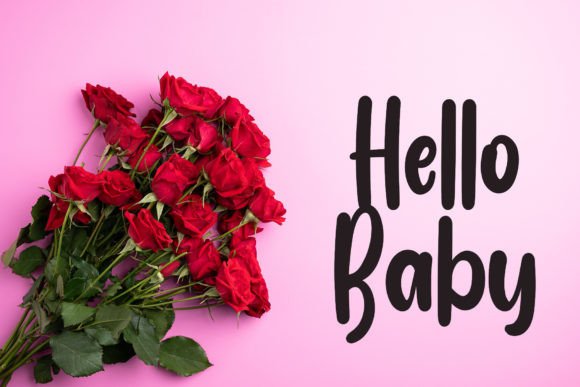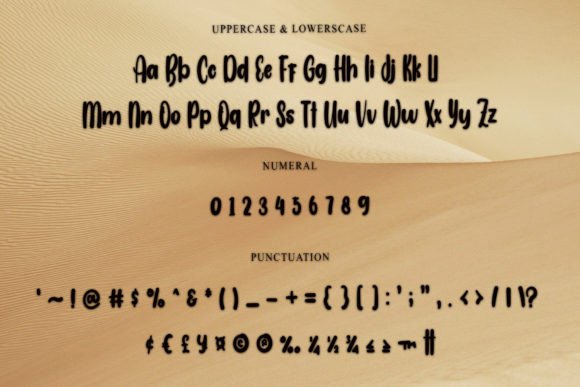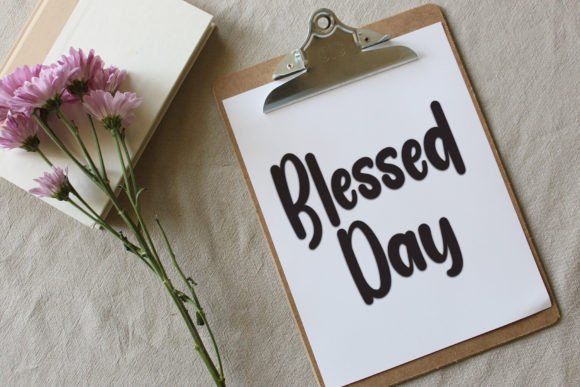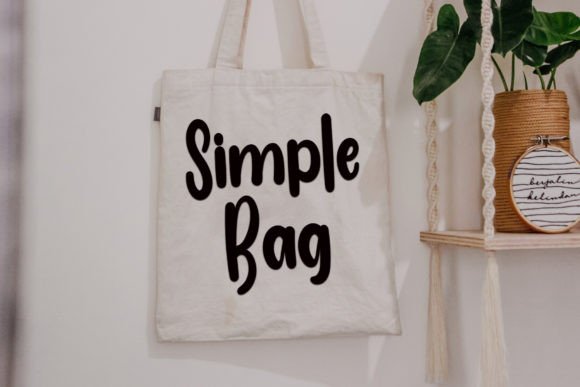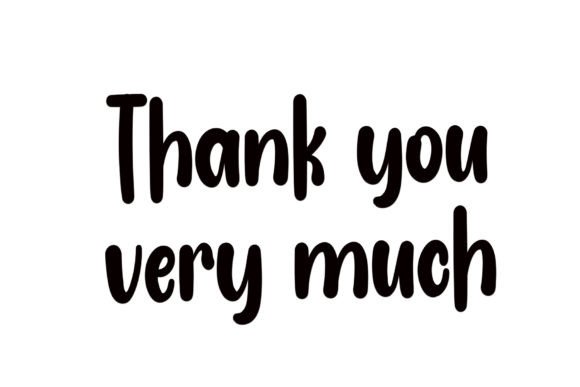
Introducing Cheerfully Font: Elevate Your Creativity with Elegance
Are you on the hunt for a font that combines fun, elegance, and creativity? Look no further than Cheerfully Font, a delightful handwritten font designed to bring a touch of sophistication to your projects. Whether you’re a designer, crafter, or DIY enthusiast, Cheerfully Font is the perfect addition to your typography arsenal.
The Story Behind Cheerfully Font
Cheerfully Font is a carefully crafted handwritten font that exudes warmth and personality. Its unique blend of playfulness and elegance makes it an ideal choice for a wide range of creative projects, from social media graphics and invitations to DIY crafts and calligraphy scripts.
Key Features of Cheerfully Font
• Handwritten with love: Cheerfully Font is meticulously handcrafted to ensure a personal touch in every letter and curve.
• Elegant and fun: This font strikes the perfect balance between sophistication and playfulness, making it versatile for various design needs.
• Perfect for Instagram: Stand out on social media with eye-catching graphics and posts that showcase your creativity.
• Ideal for DIY projects: From crafting beautiful calligraphy scripts to designing unique party invitations, Cheerfully Font adds a touch of artistry to your work.
Use Cases for Cheerfully Font
Cheerfully Font is incredibly versatile, making it suitable for a multitude of applications. Here are some inspiring ways to use this beautiful font:
• Social Media Graphics: Elevate your Instagram feed or create engaging Facebook posts with custom graphics that showcase your personality or brand.
• Calligraphy Scripts: Add a personal touch to your handwritten notes, letters, or journal entries with elegant calligraphy.
• DIY Crafts: Whether you’re making party decorations, gift tags, or personalized cards, Cheerfully Font brings a creative flair to your projects.
• Invitations and Announcements: Create stunning invitations for special occasions like weddings, birthdays, or baby showers that leave a lasting impression.
Why Choose Cheerfully Font?
In a world where digital content reigns supreme, using a unique and captivating font like Cheerfully can make all the difference. Here are a few reasons why designers and crafters prefer this font:
• Unique Style: Stand out from the crowd with a font that is both distinctive and visually appealing.
Tips for Getting the Most Out of Cheerfully Font
To truly make Cheerfully Font shine in your projects, consider the following tips:
• Experiment with Colors: Play around with different color schemes to find the perfect match for your design.
• Mix and Match Fonts: Combine Cheerfully Font with other fonts to create visually interesting and dynamic compositions.
• Pay Attention to Details: Take the time to adjust spacing and sizing to ensure your text looks polished and professional.
Cheerfully Font is more than just a font – it’s a tool for unlocking your creative potential. With its unique blend of elegance and playfulness, it’s the perfect choice for designers and crafters looking to add a personal touch to their work. Whether you’re creating social media graphics, calligraphy scripts, or DIY projects, Cheerfully Font is sure to turn your ideas into true pieces of art. So why wait? Dive into the world of creative possibilities with Cheerfully Font today!